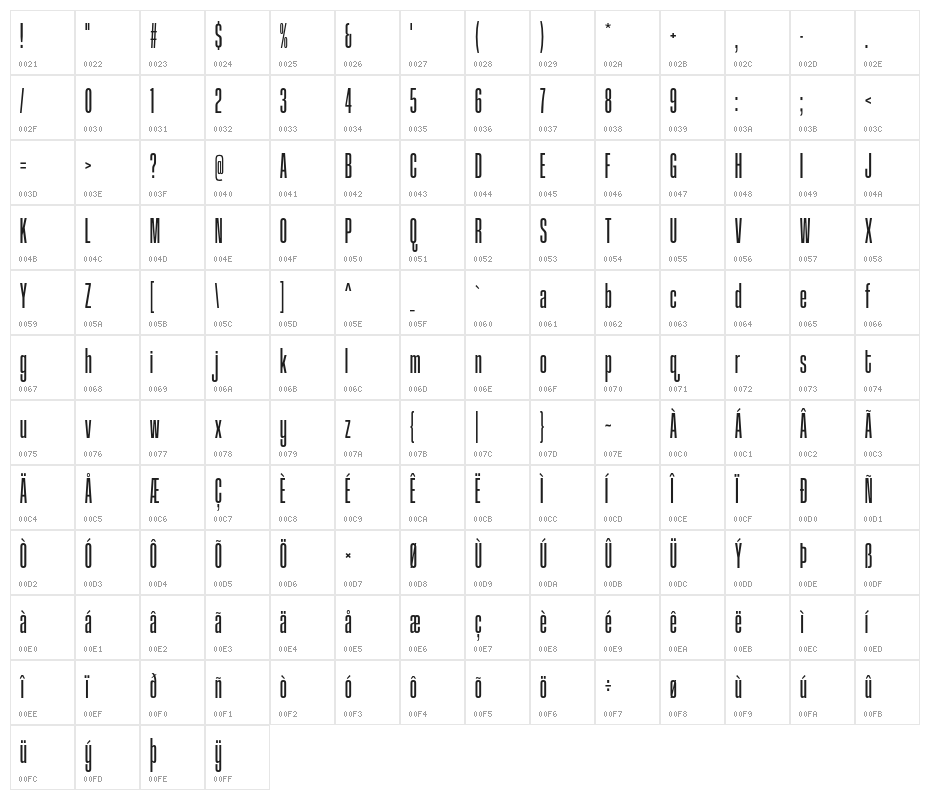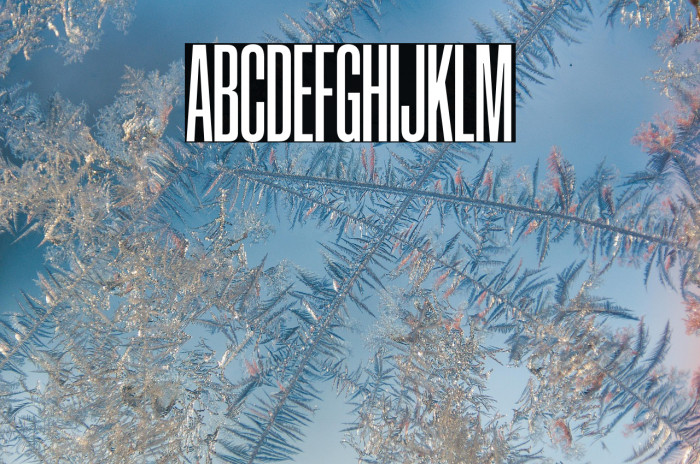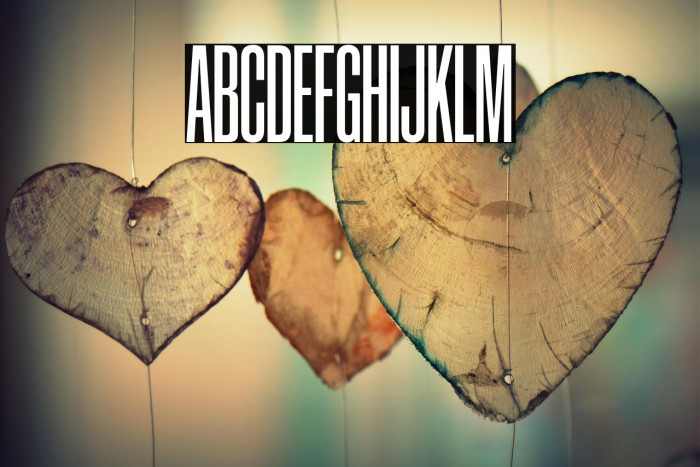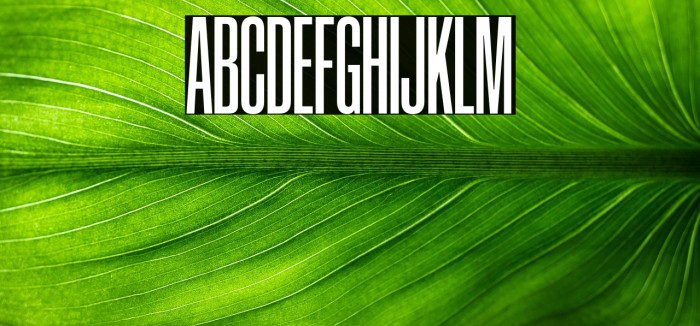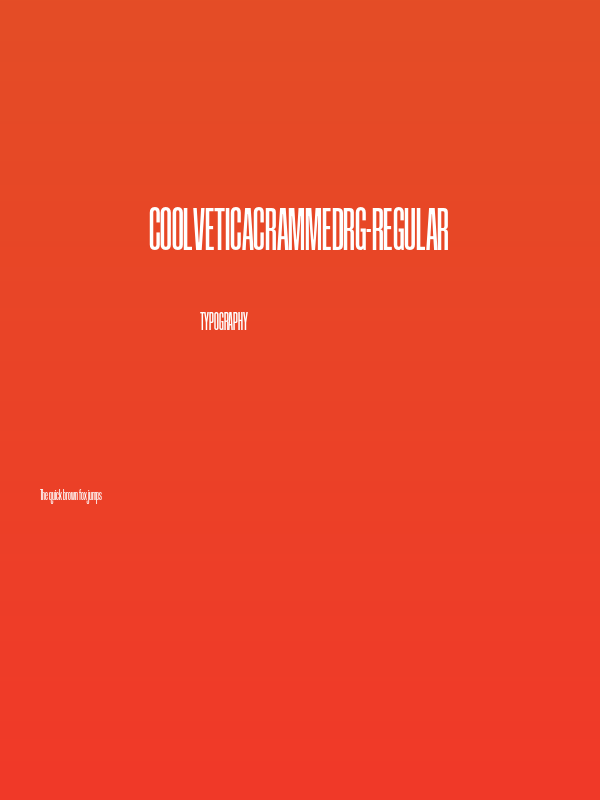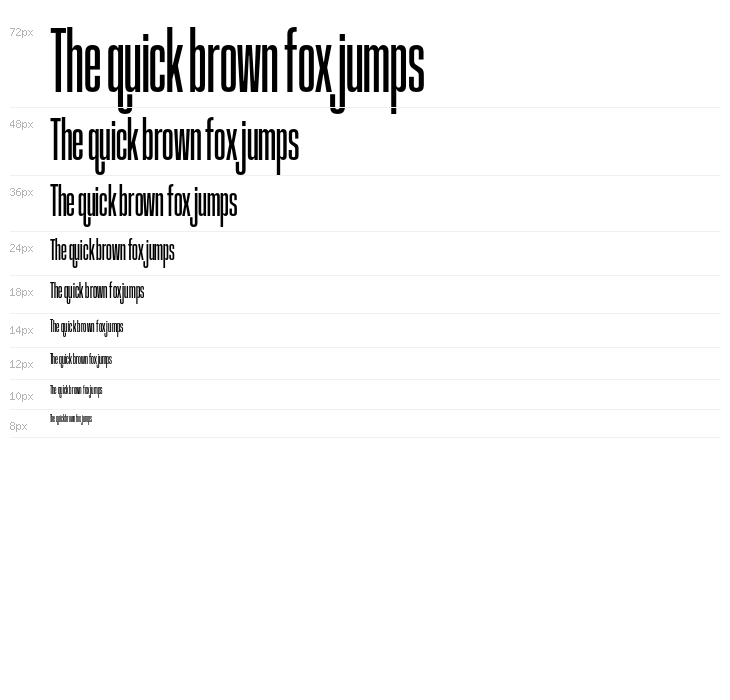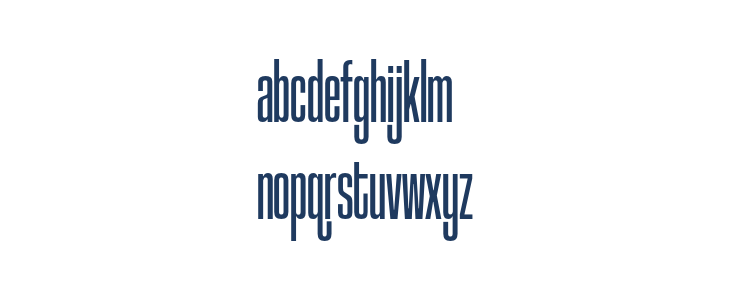
CoolveticaCrammedRg-Regular Font
CoolveticaCrammedRg-Regular Description
This font features a condensed and modern sans-serif style, characterized by its tall, narrow letterforms and consistent stroke width. The uppercase and lowercase letters maintain a uniform height, creating a cohesive and streamlined appearance. The numerals and special characters are designed to match the overall aesthetic, providing a clean and contemporary look. The font's vertical emphasis and tight spacing make it ideal for creating impactful headlines and titles, where space is limited but a strong visual presence is required.
| Proposed Projects | Ideal for use in headlines, posters, and branding materials where a modern and impactful look is desired. |